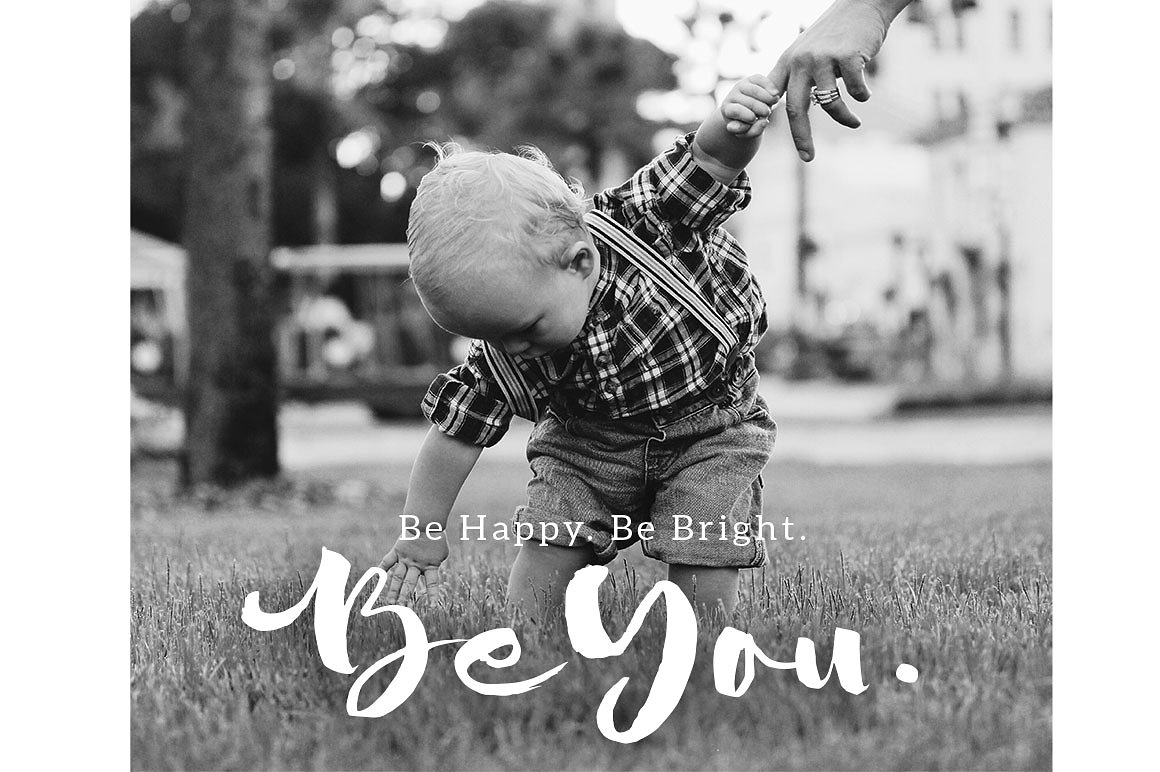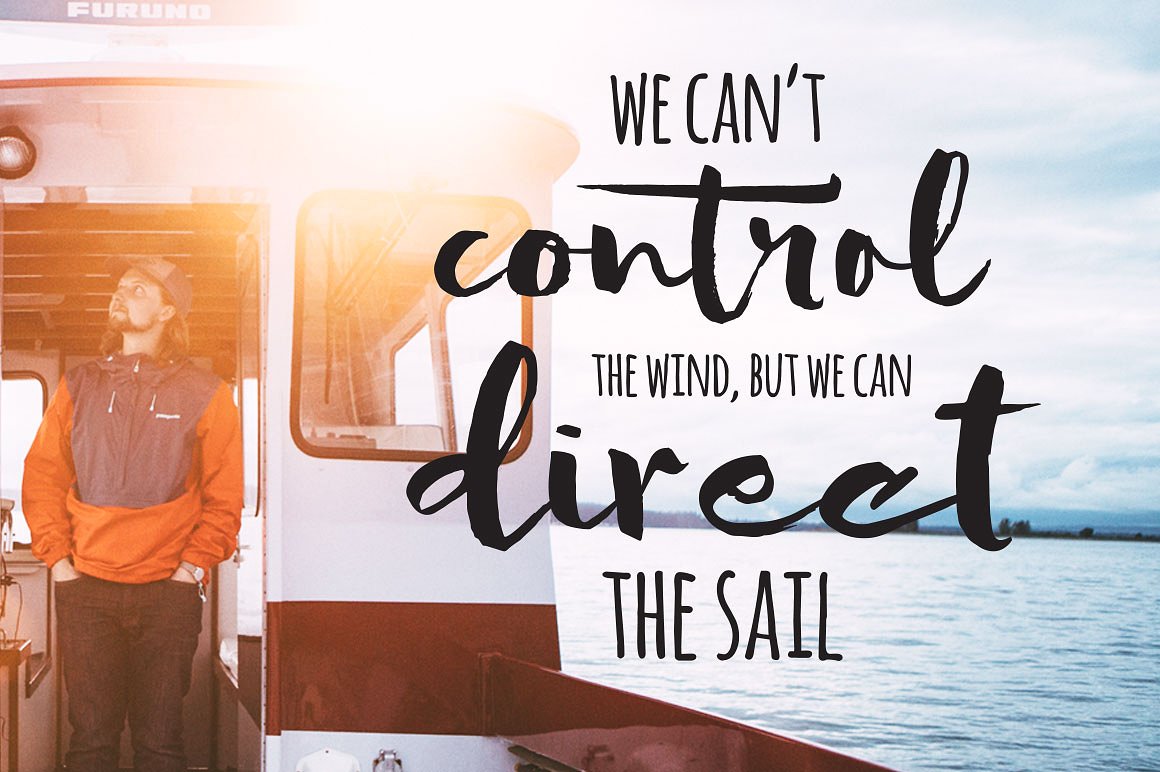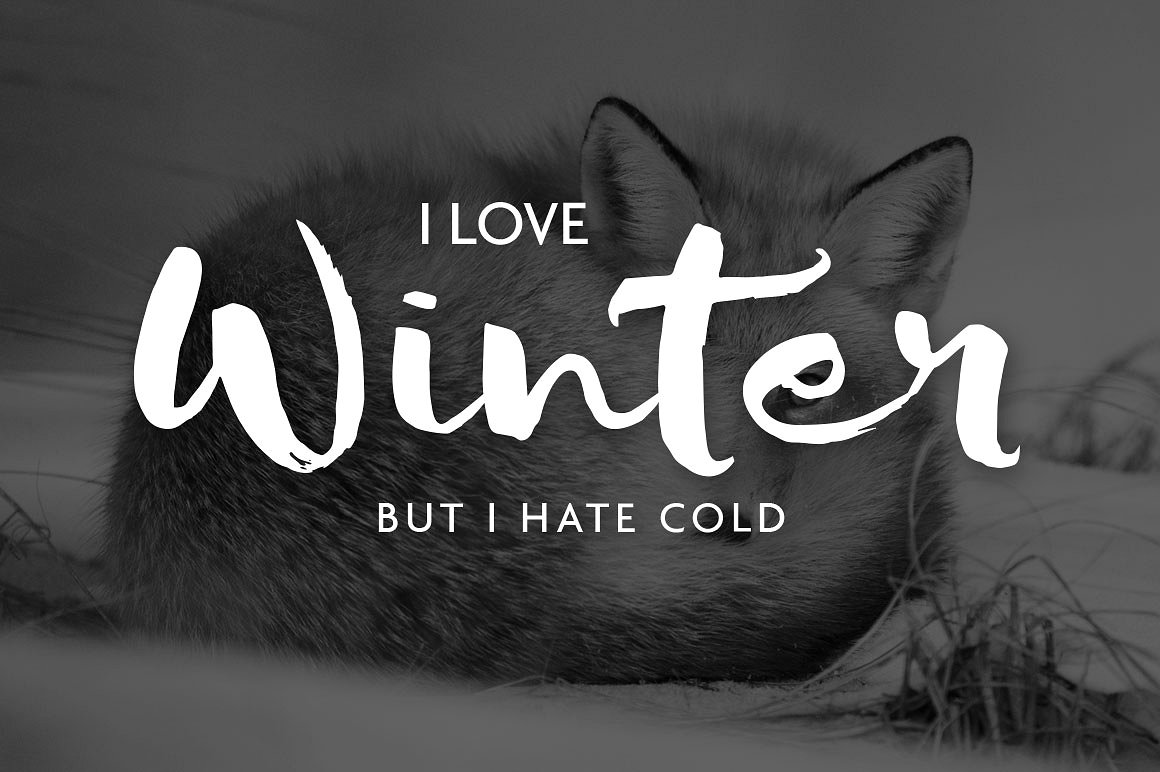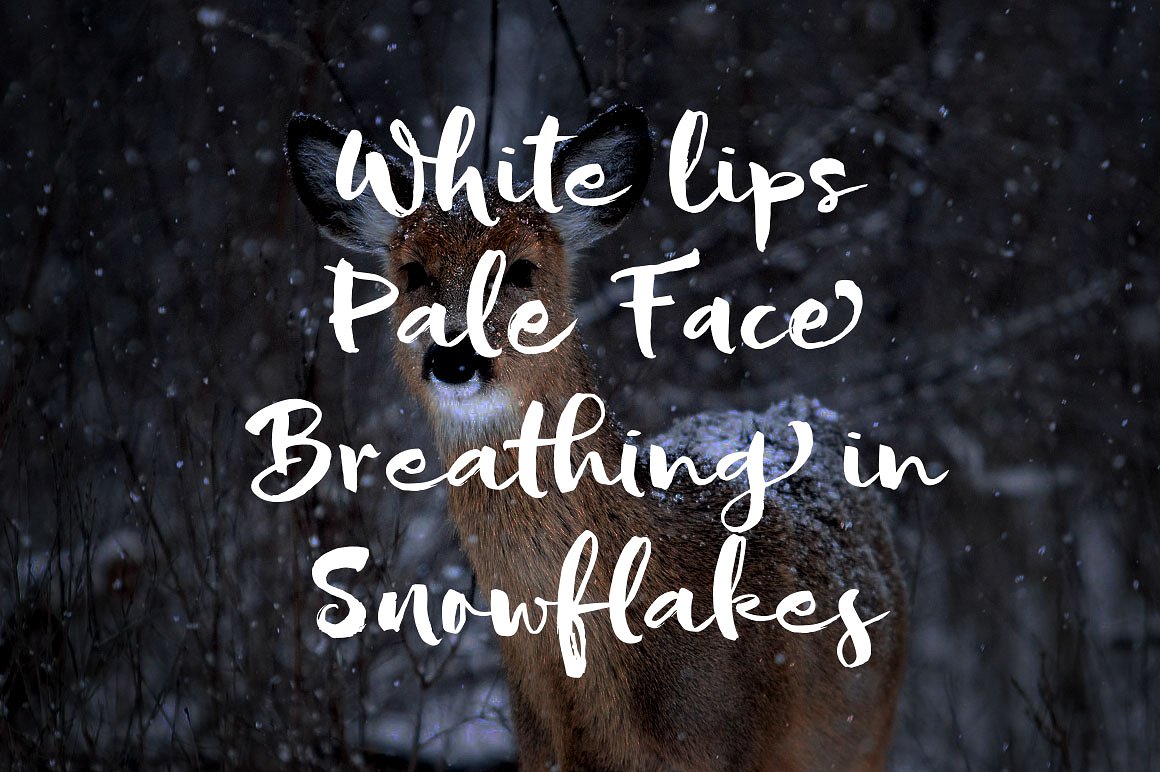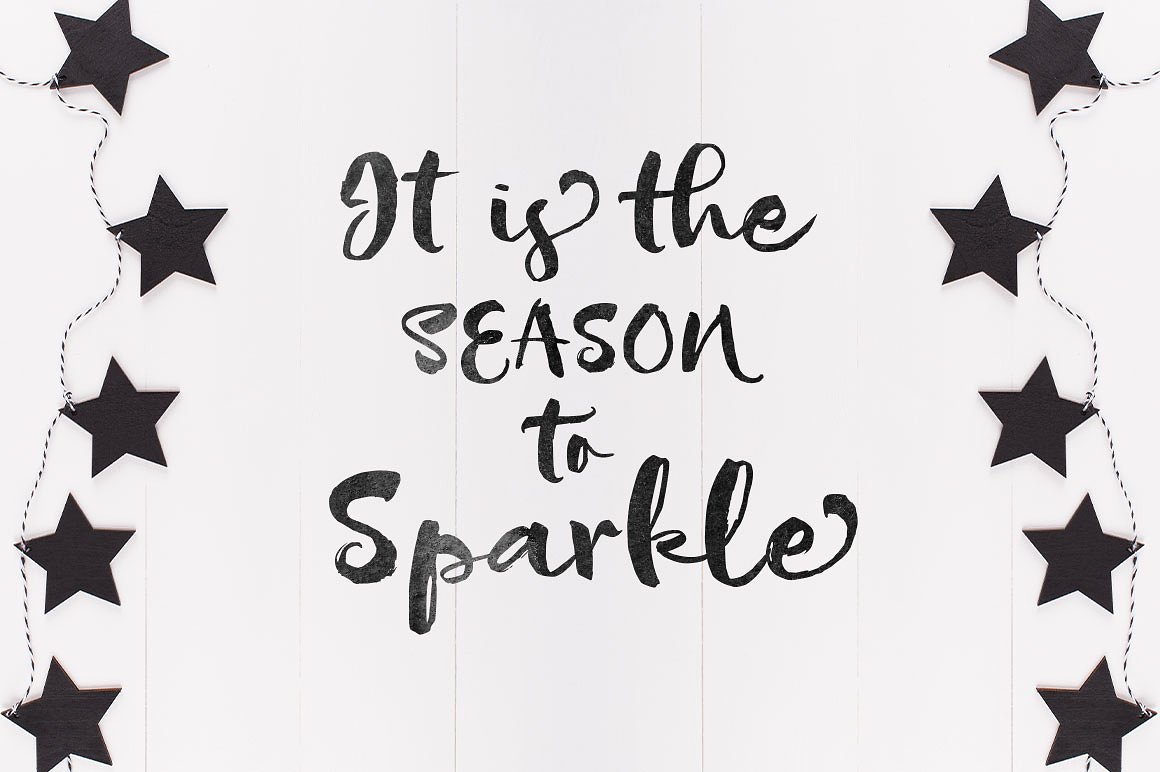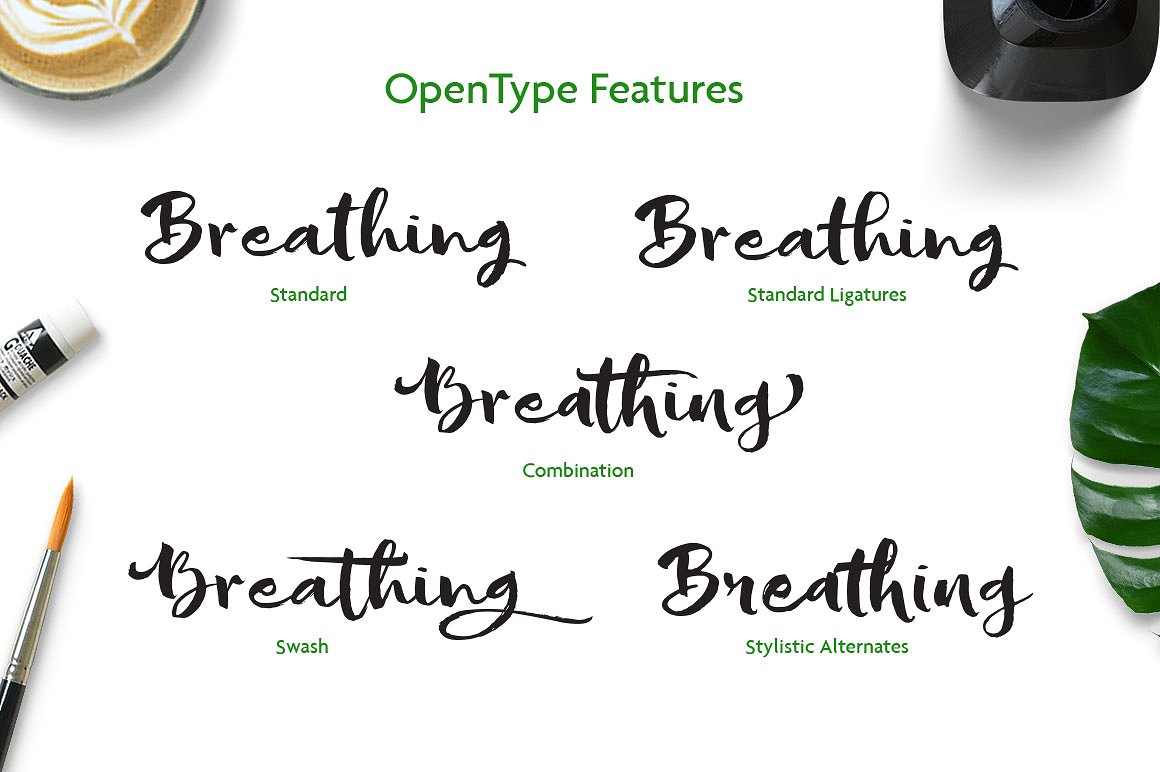
Sofie Font
About Sofie Font
Sofie is a sold brush font with a varying baseline. The Sofie Script flows from bold to thin and back in a single stroke, giving it a playful look.